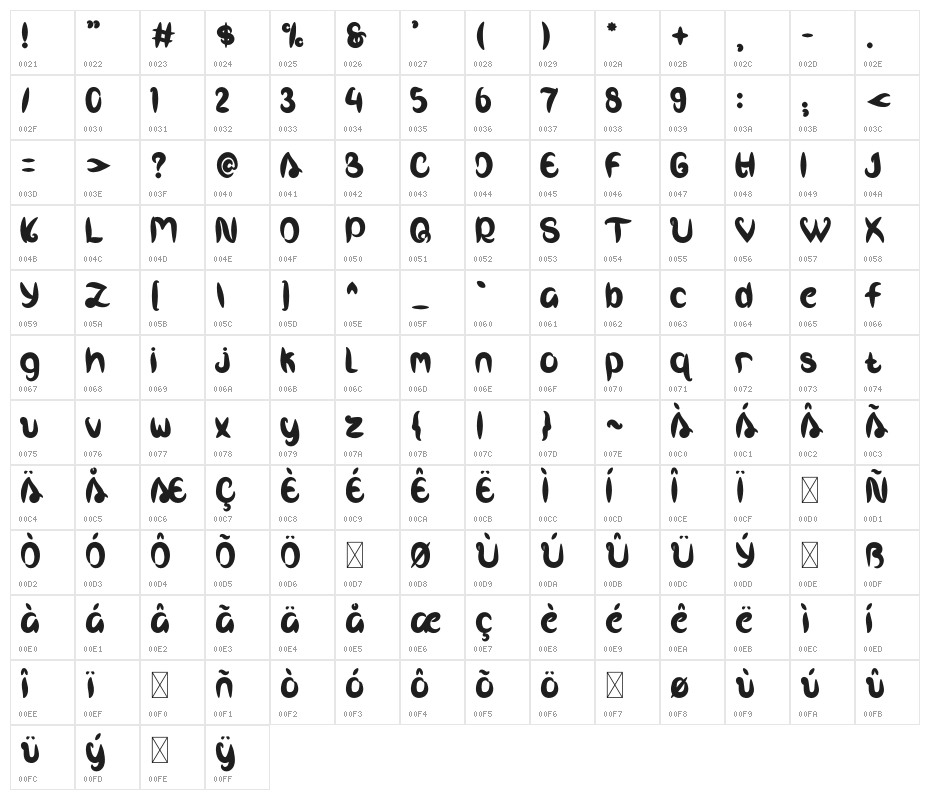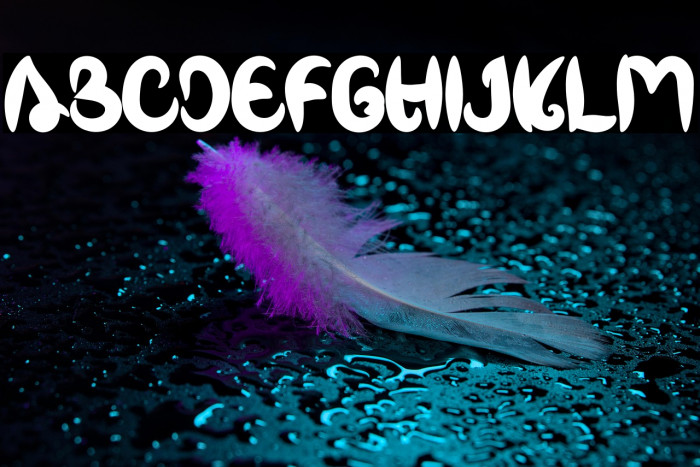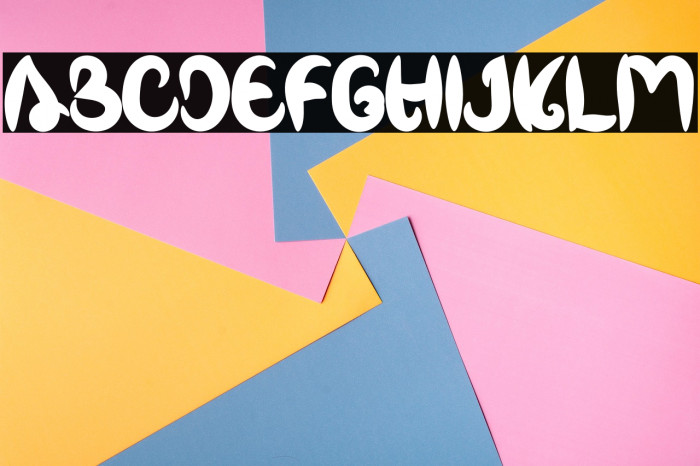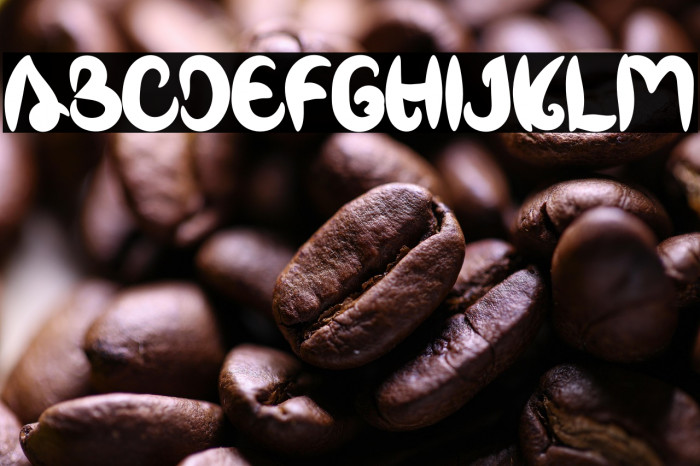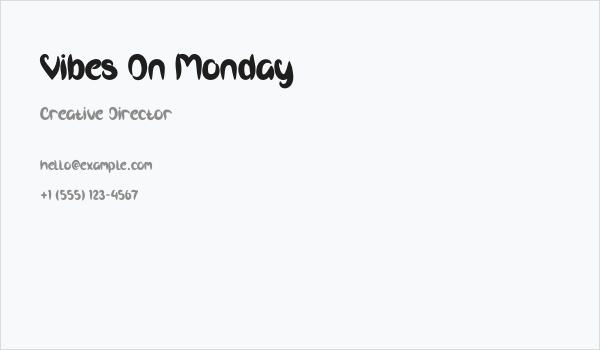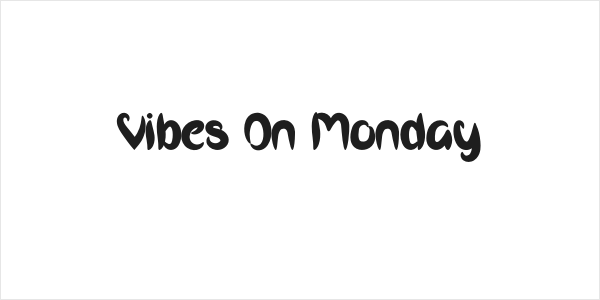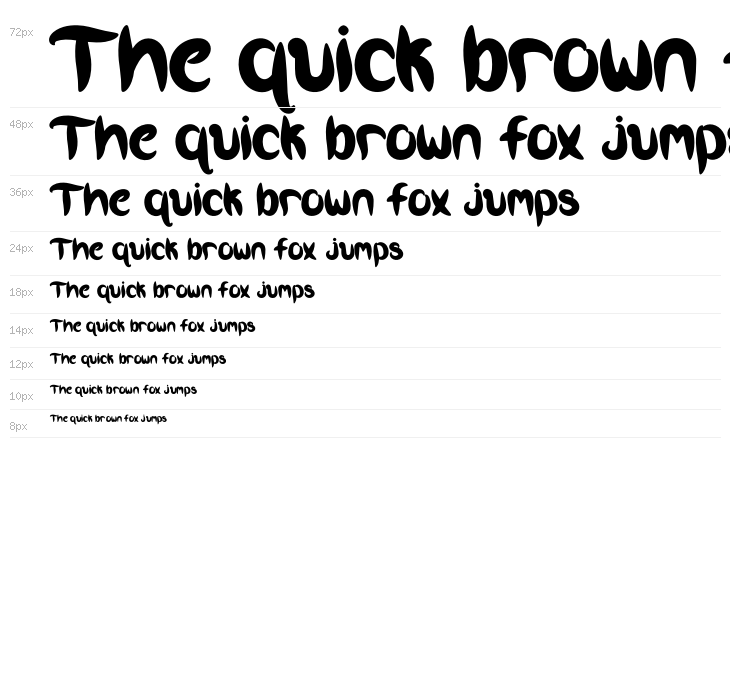
Vibes On Monday Font
Vibes On Monday Description
This font features a playful and bold design with a unique, wavy appearance. The characters are rounded and have a whimsical, almost cartoon-like quality. The strokes are thick and consistent, giving the font a strong presence. It combines a sense of fun with readability, making it suitable for creative and informal applications. The uppercase and lowercase letters maintain a consistent style, while the numbers and special characters are designed to match the overall playful aesthetic. This font is ideal for projects that require a touch of personality and flair.
| Proposed Projects | Perfect for children's books, playful branding, party invitations, and creative posters. |